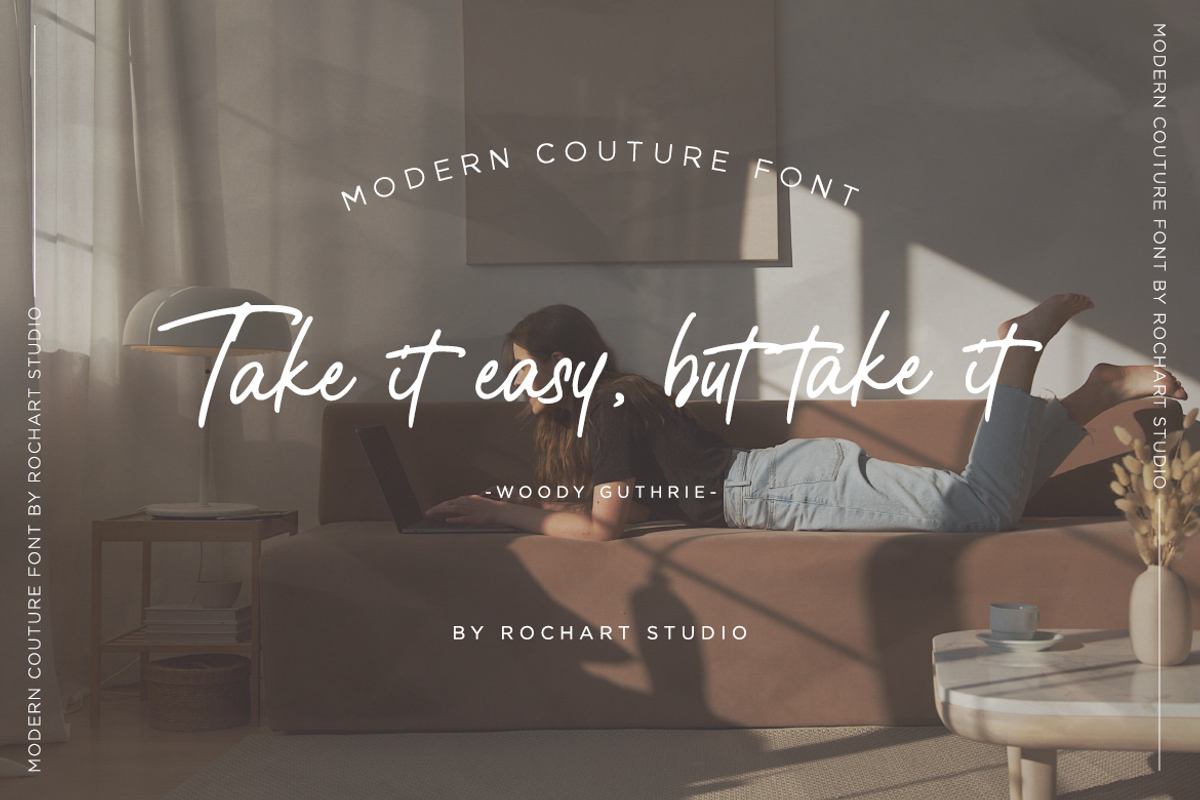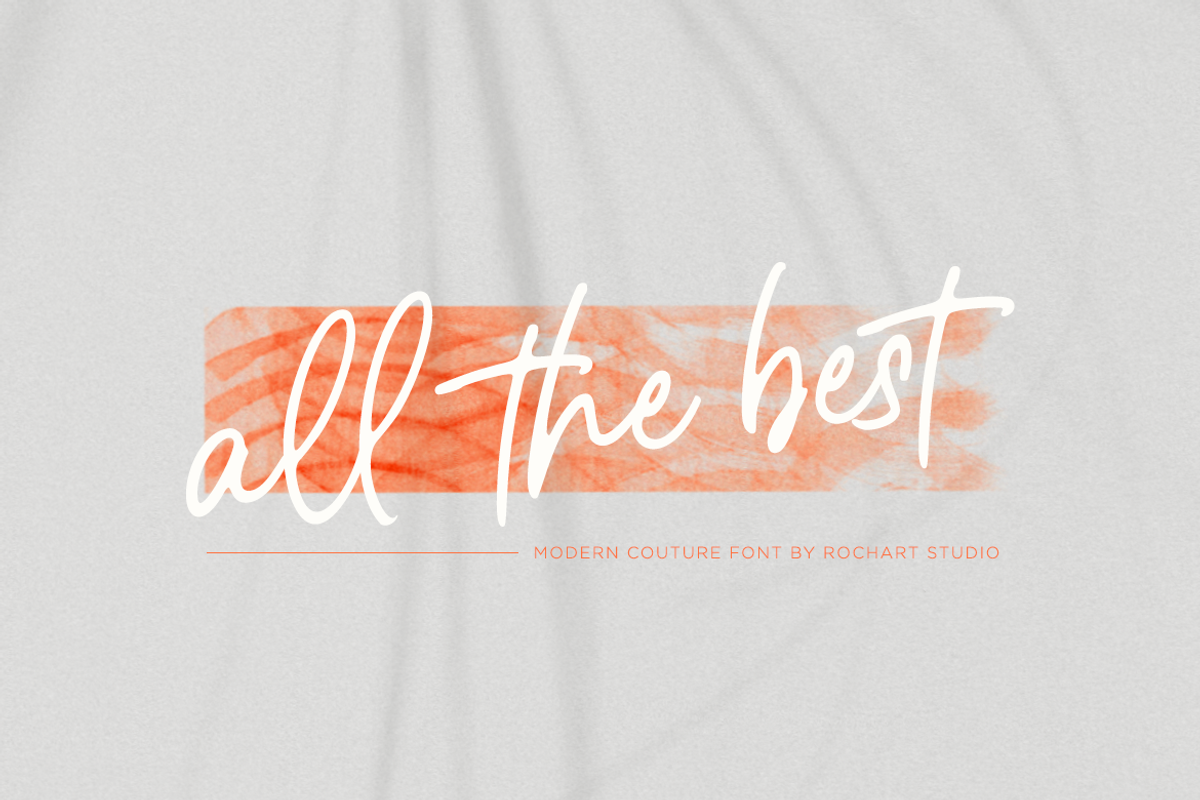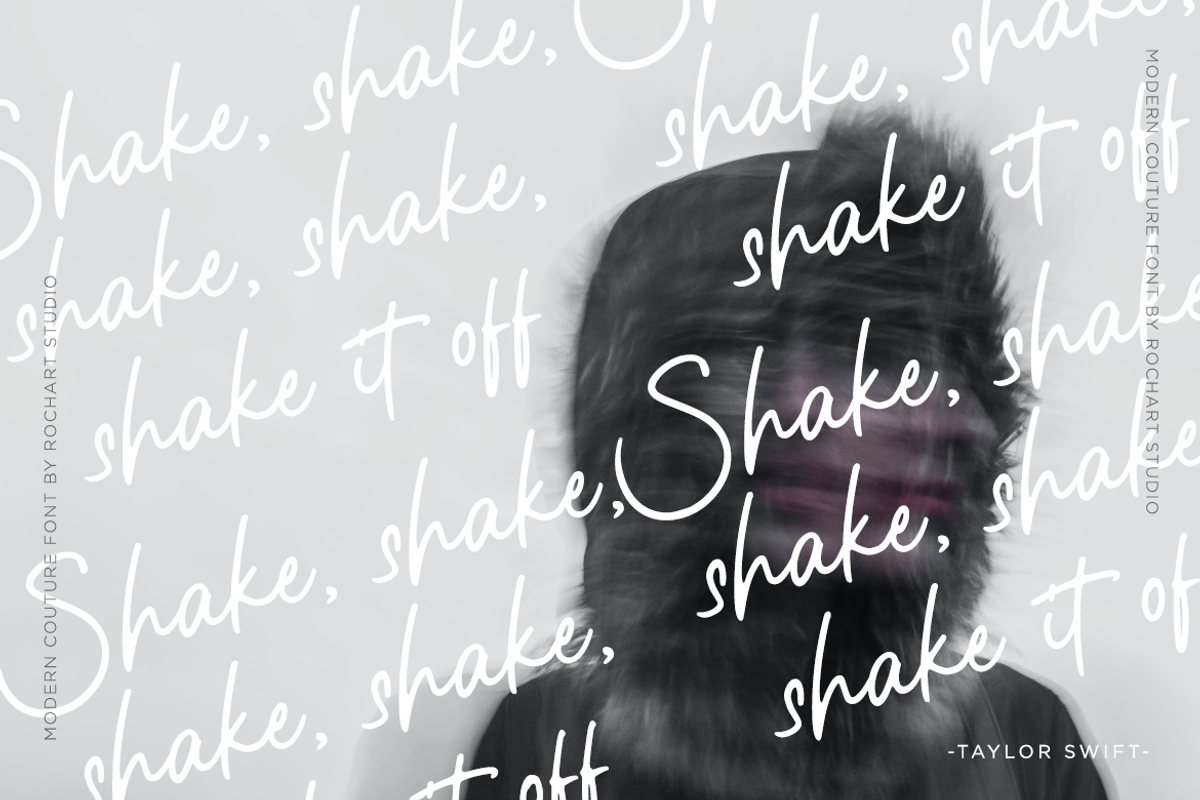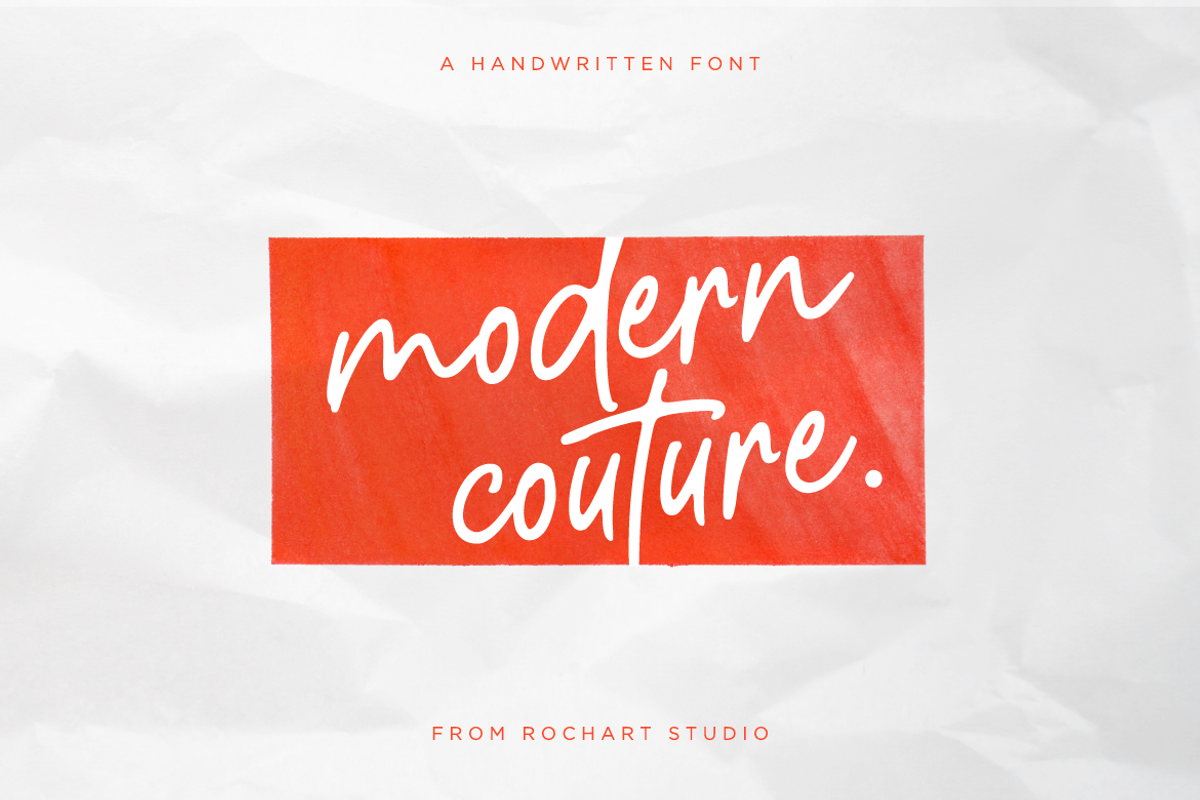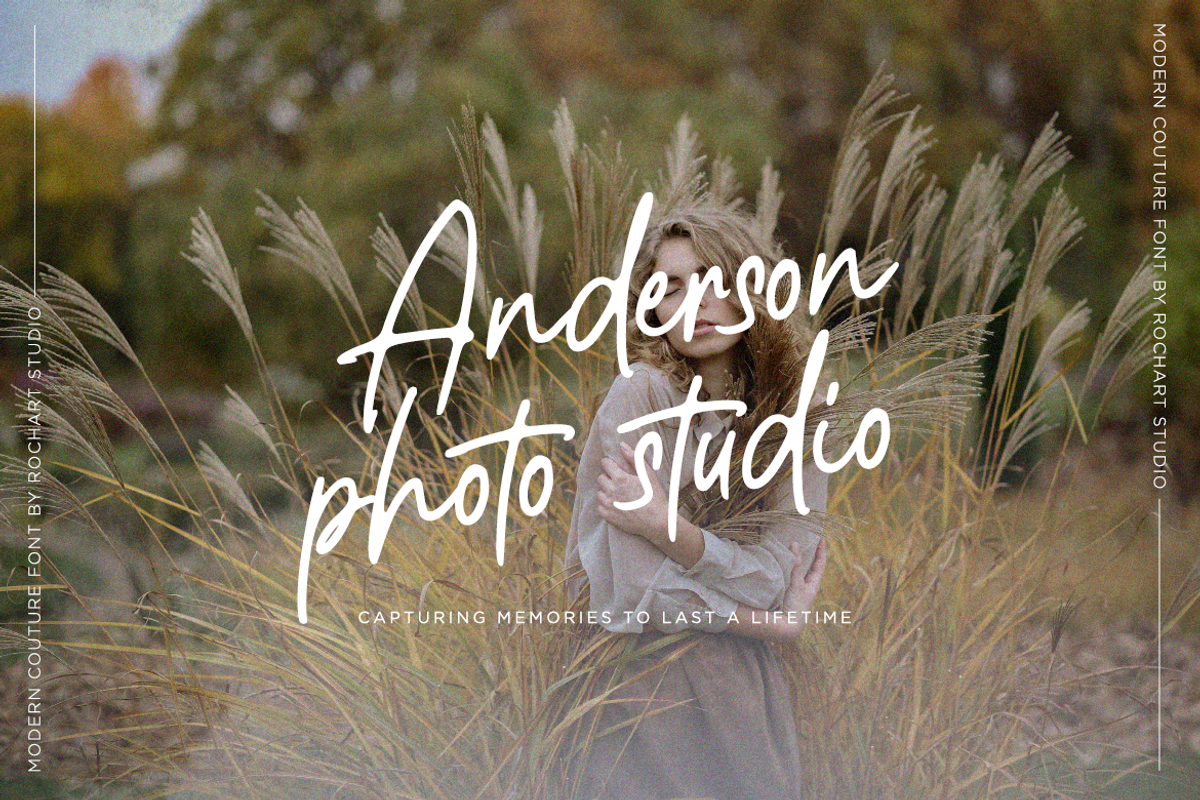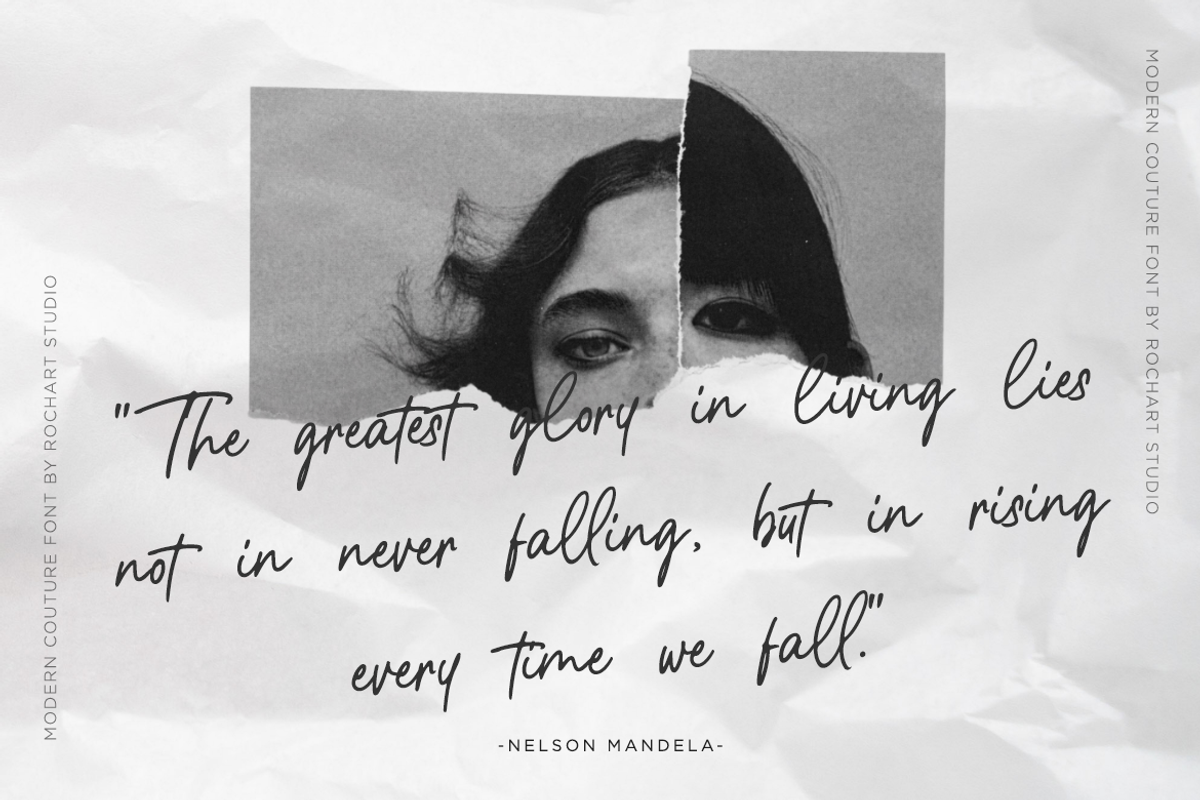
Modern Couture Script Font
Modern Couture font is an elegant and artistic script font, designed with beautiful and soft handwriting style. Each letter has a unique stroke, with flowing and agile shapes, and an attention-grabbing signature. This font is ideal for graphic designs that require a personal and artistic touch, such as wedding invitations, greeting cards, posters, logo type and more.
With Modern Couture font, you can add a touch of beauty and genuine hand impression to your design projects.